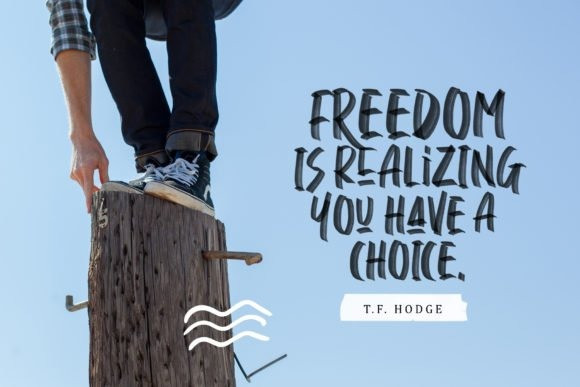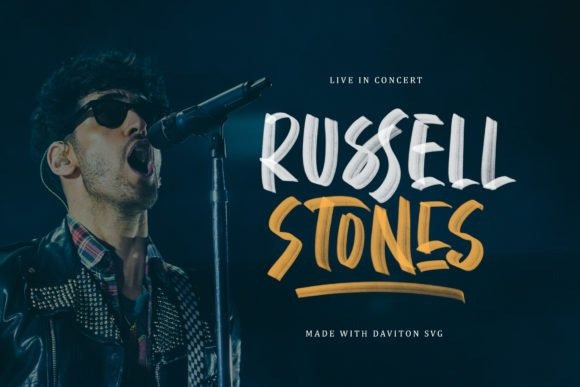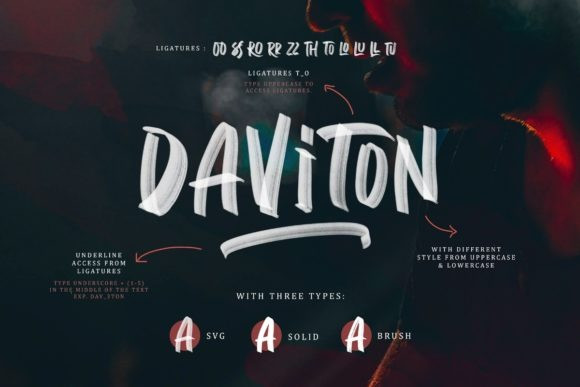
Daviton Font
Daviton Brush Font
It’s a gorgeous uppercase display brush font, designed with the modern vibe. Made from font designer named Saridezra. It comes in 3 styles; brush, solid, and a svg version. It can be used to make realistic handwriting, for promotions, and much more!